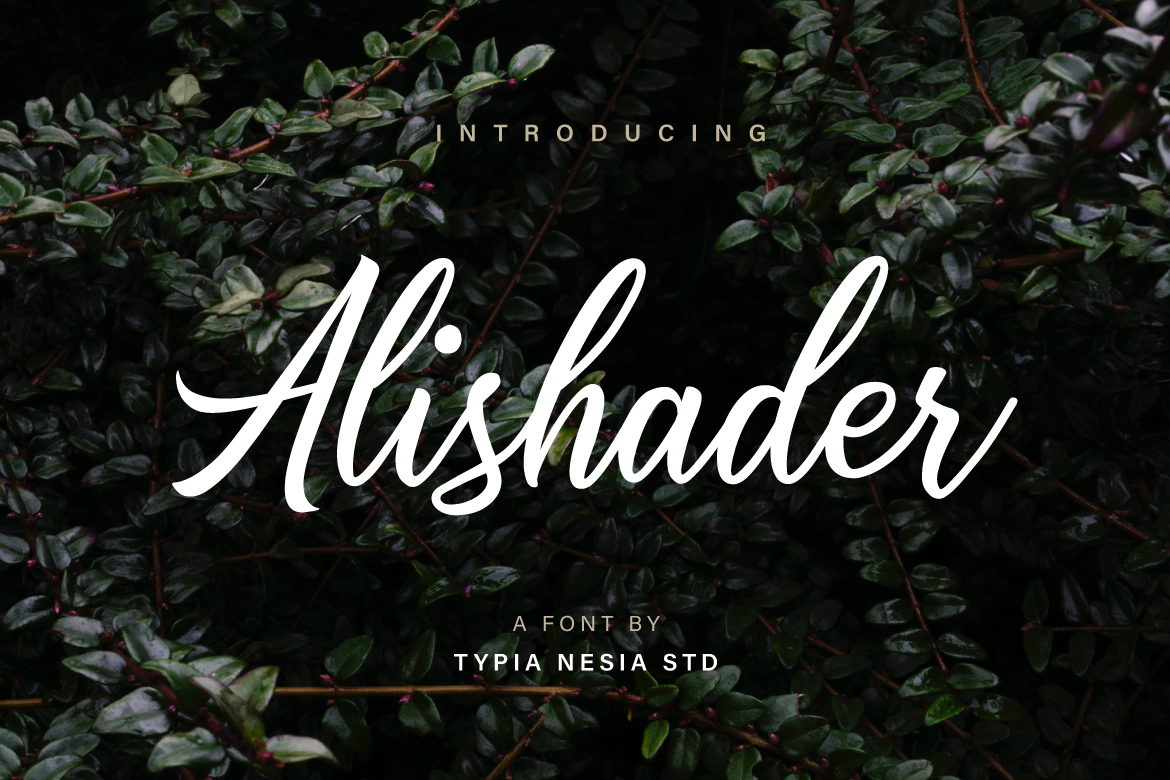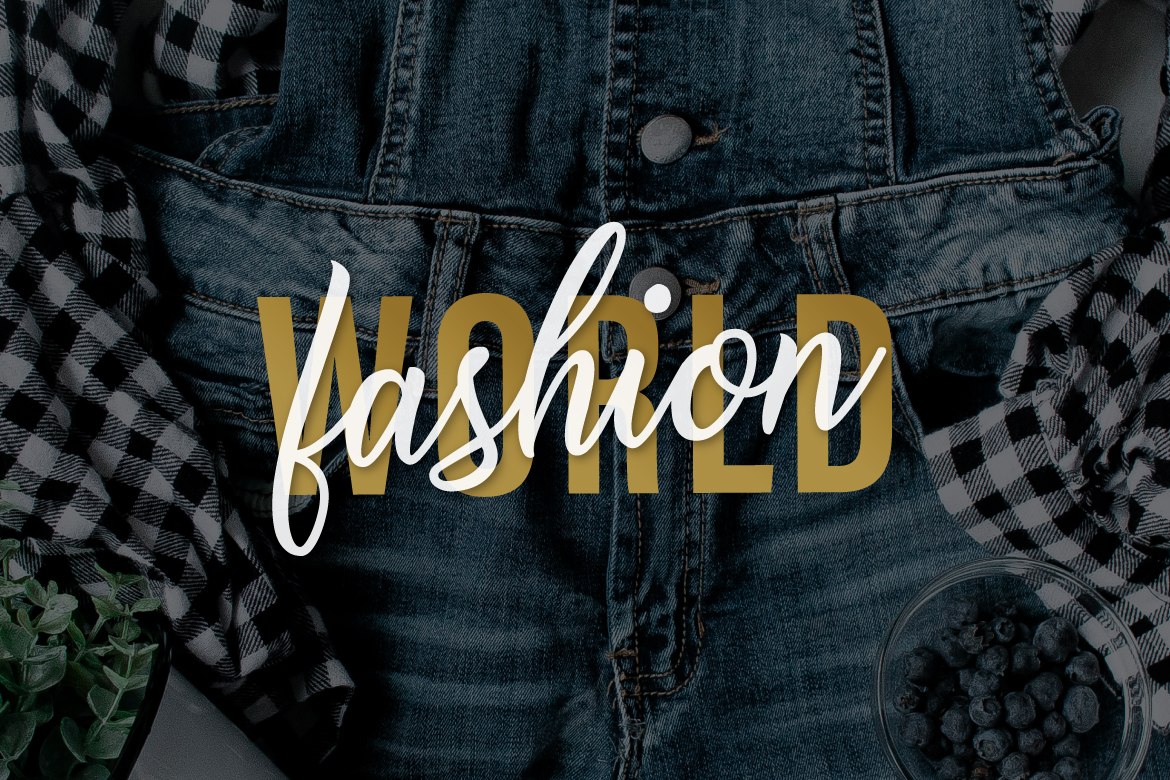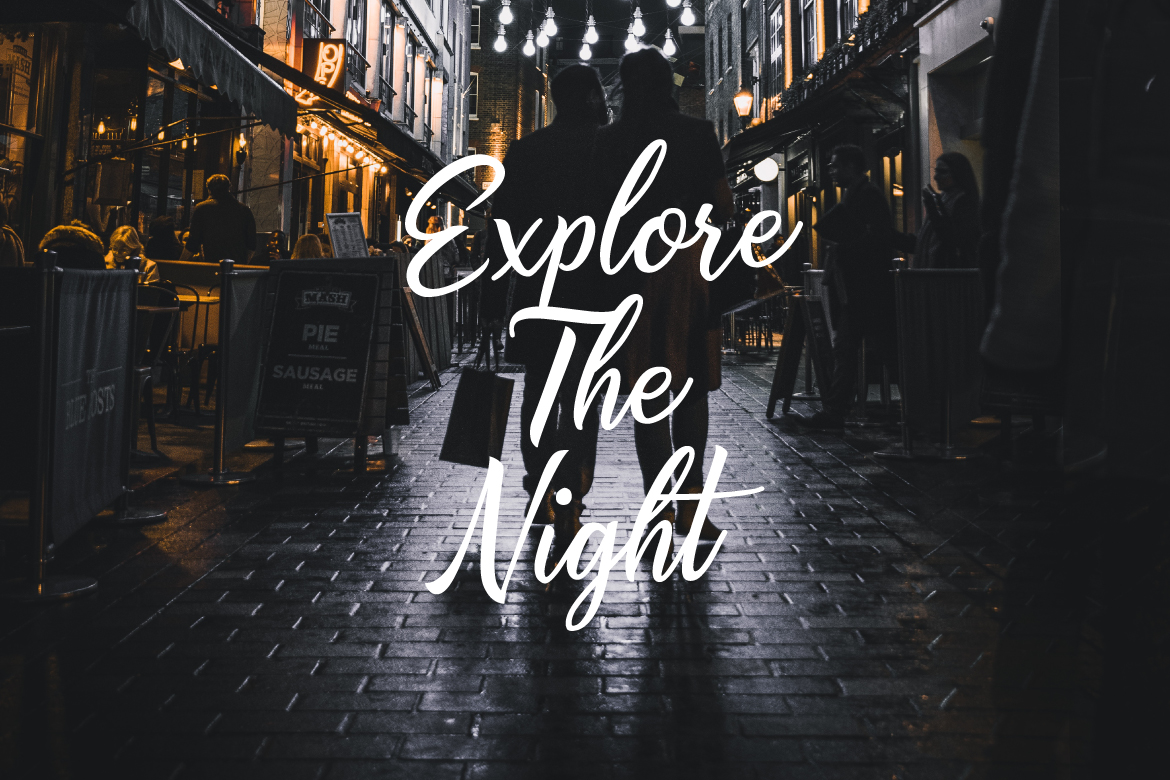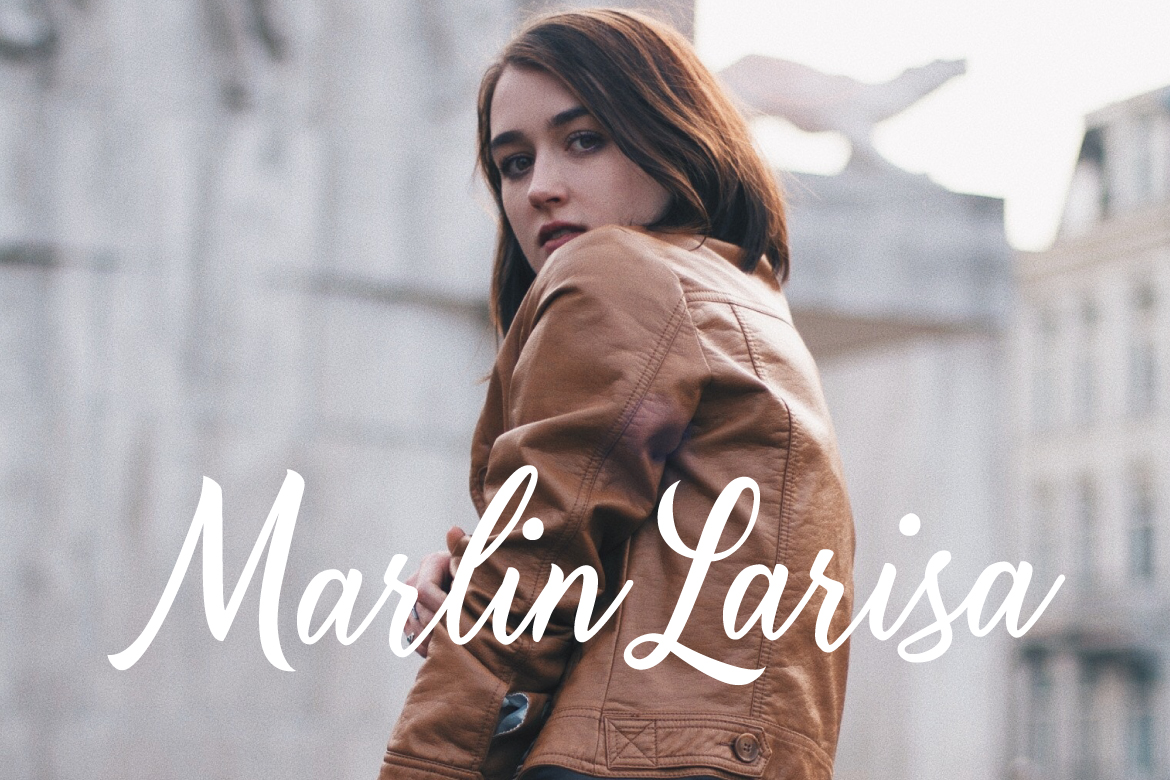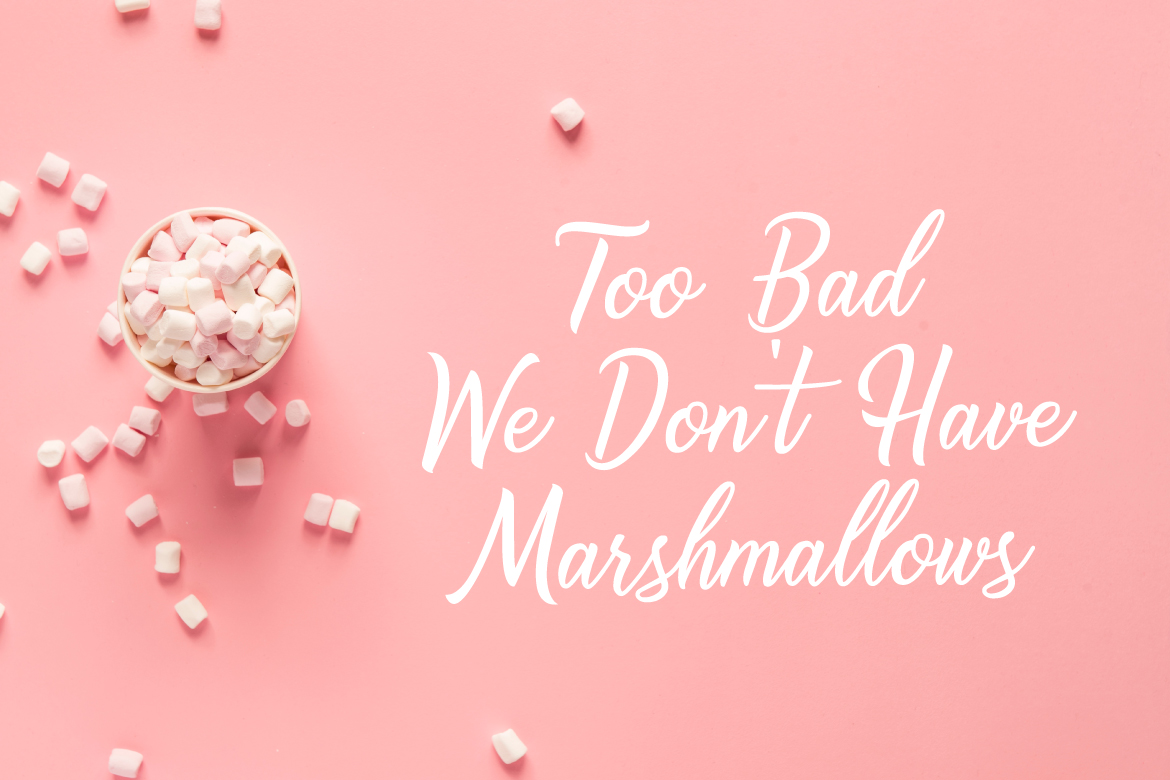
Alishader Font
About Alishader Font
Alishader is an elegant and modern calligraphy font, perfect for giving your designs a needed stylish edge. This font looks amazing as a headline, and is suitable for logotype projects.